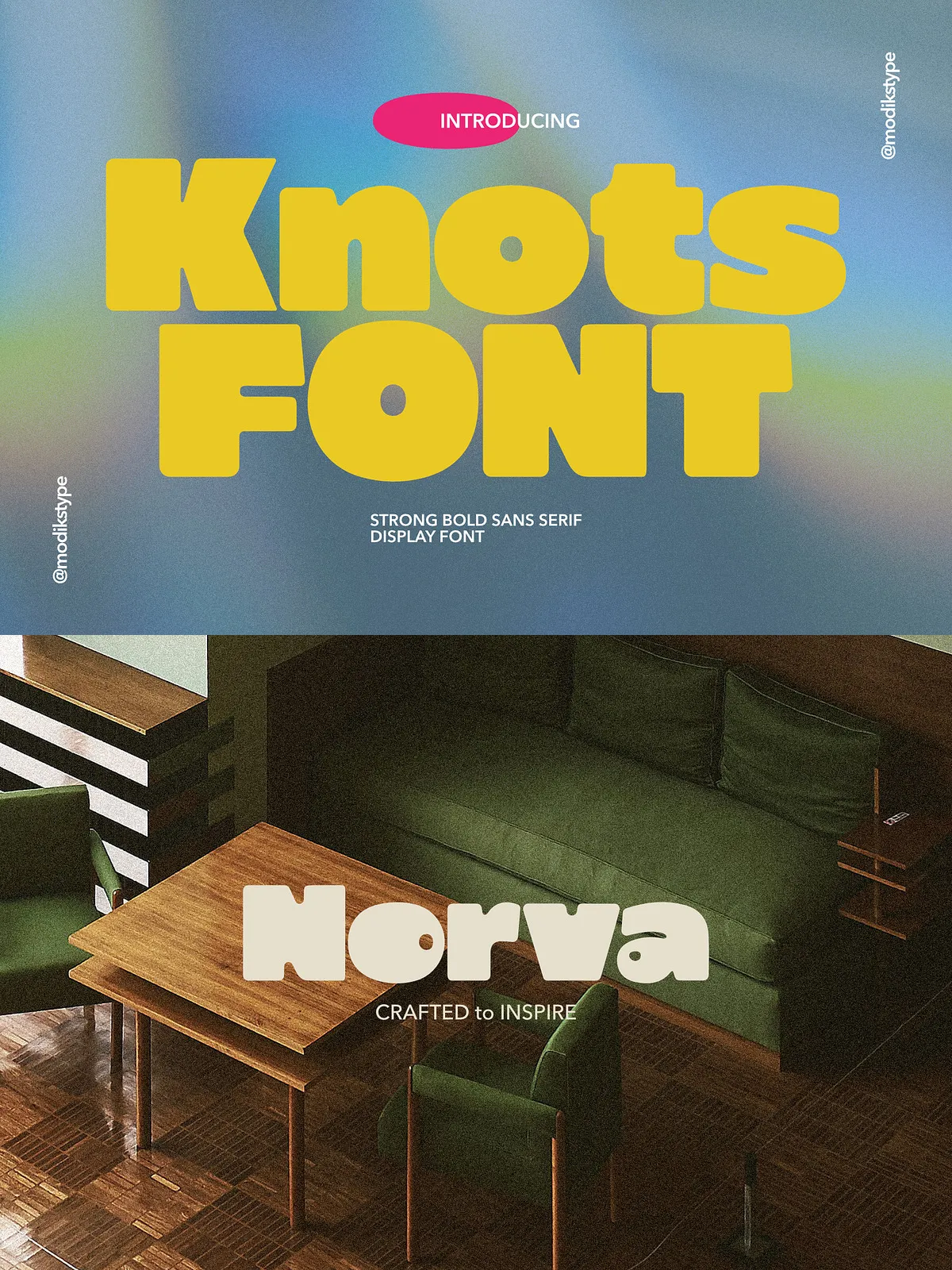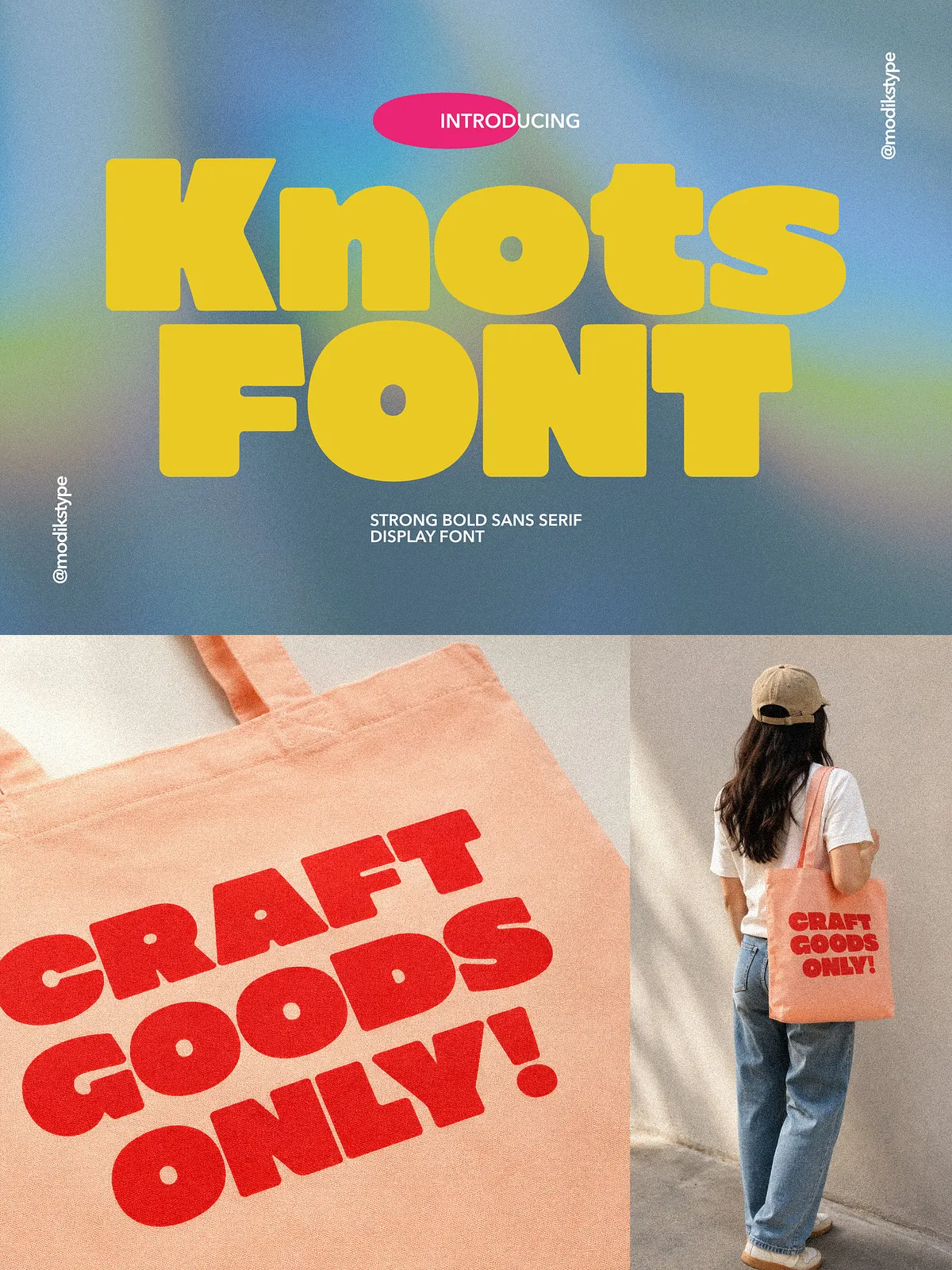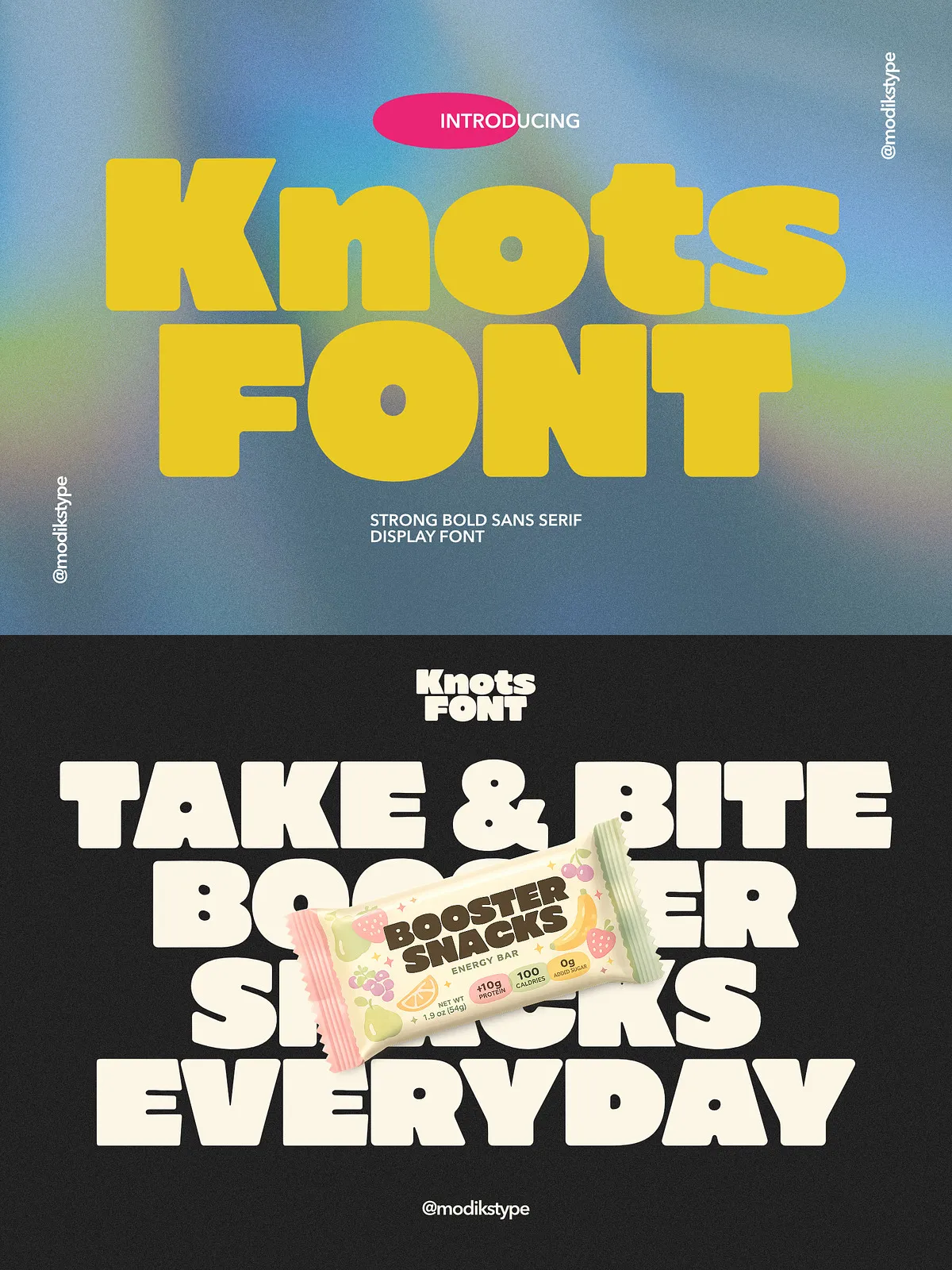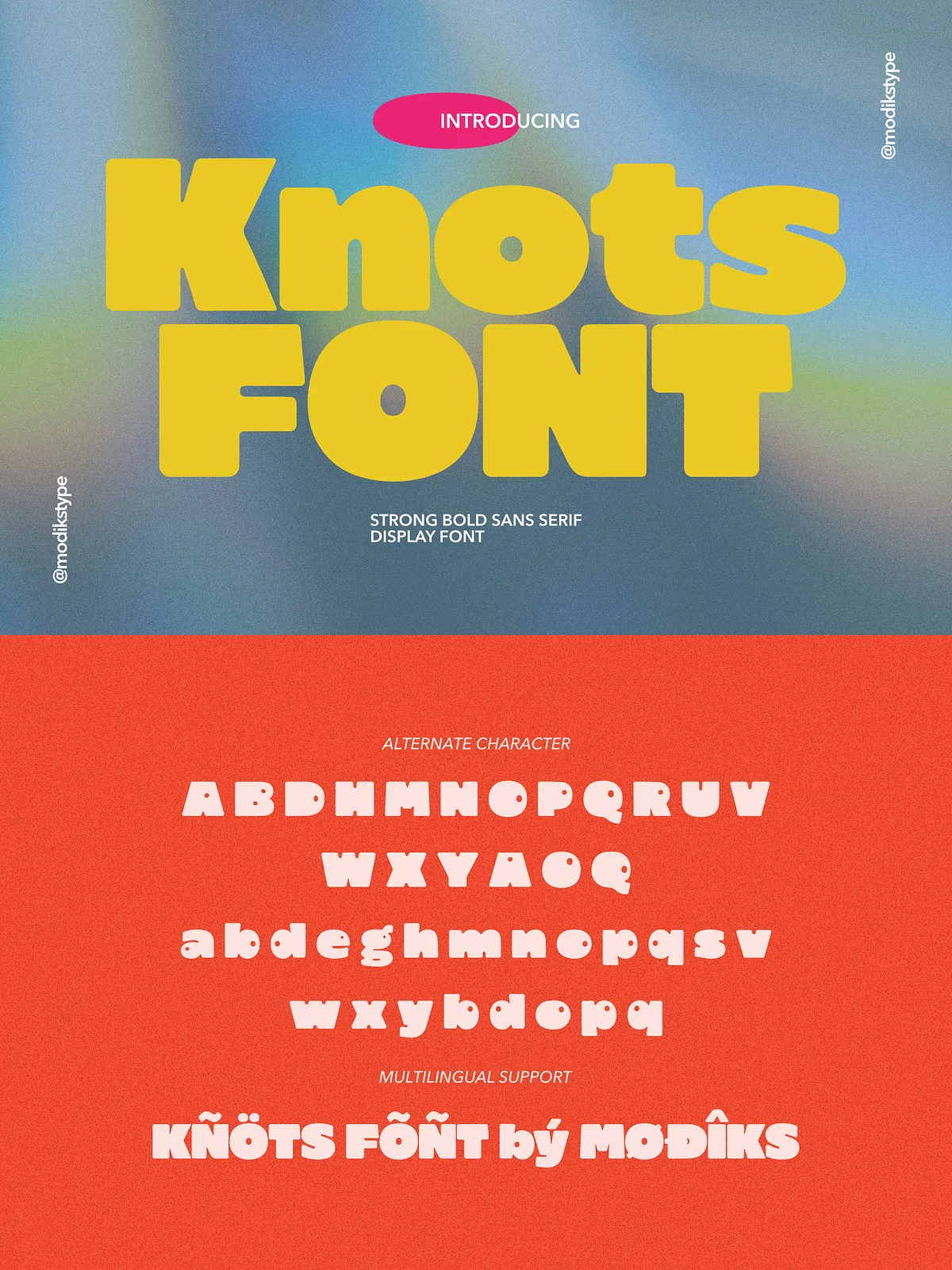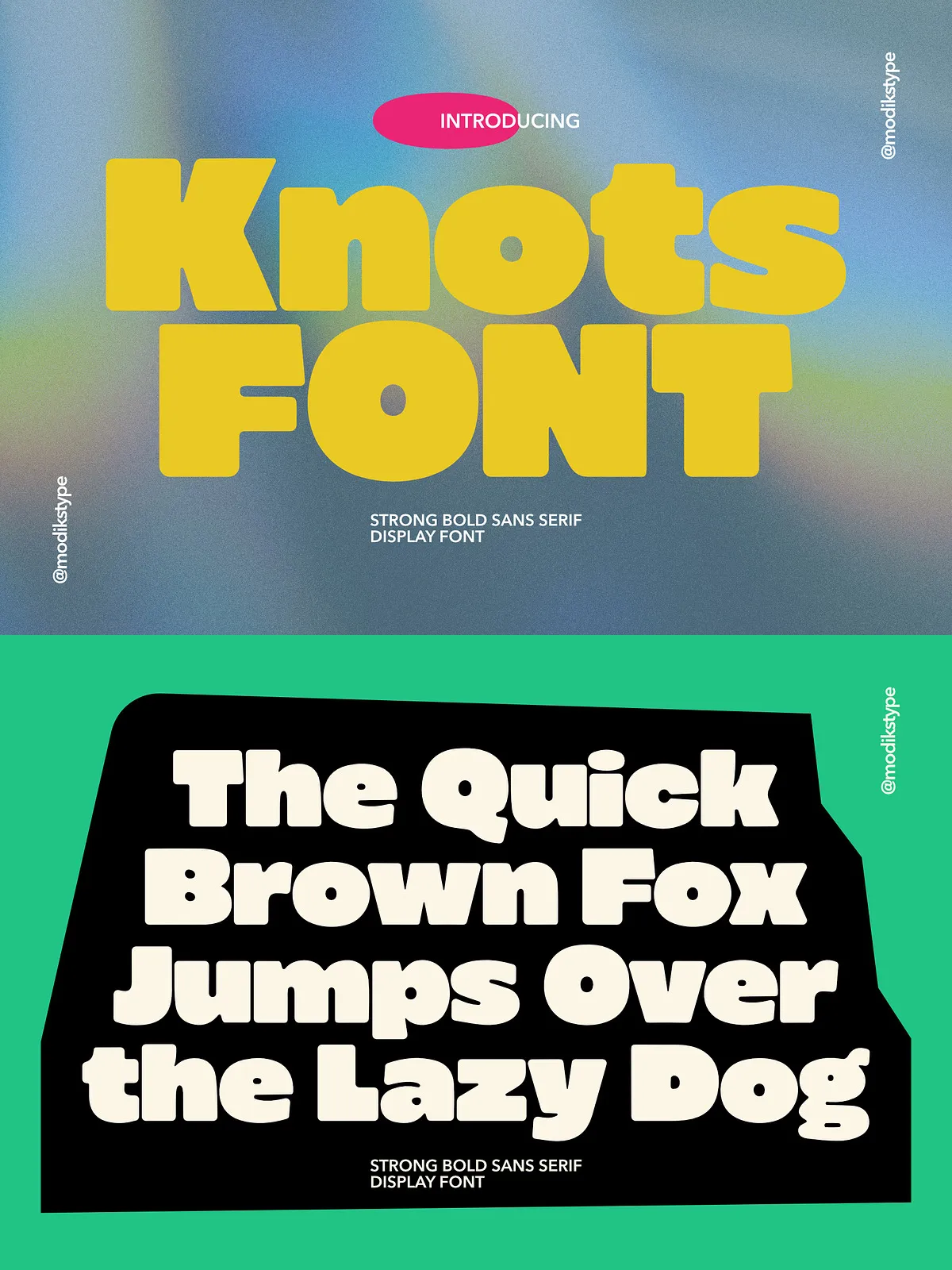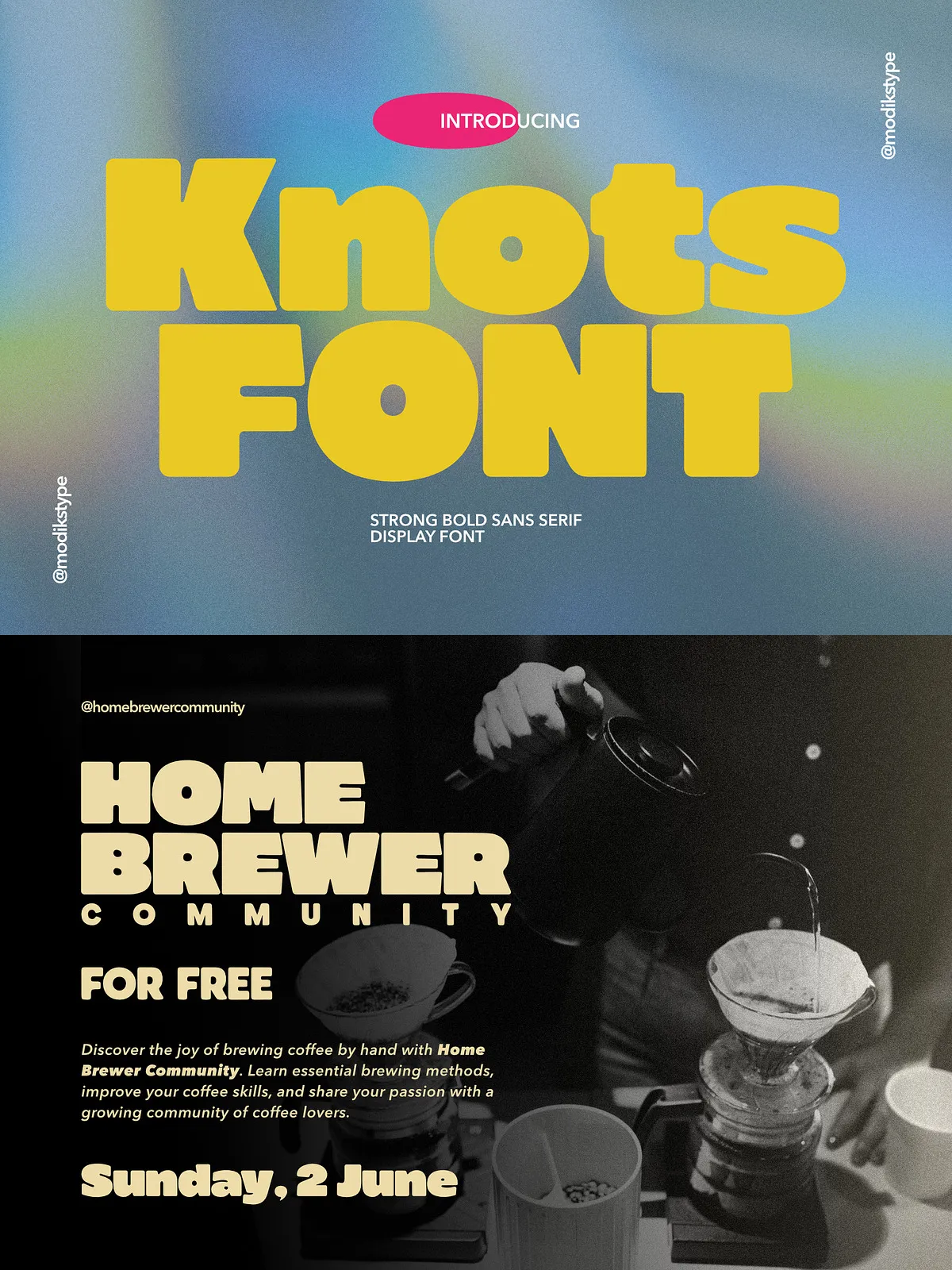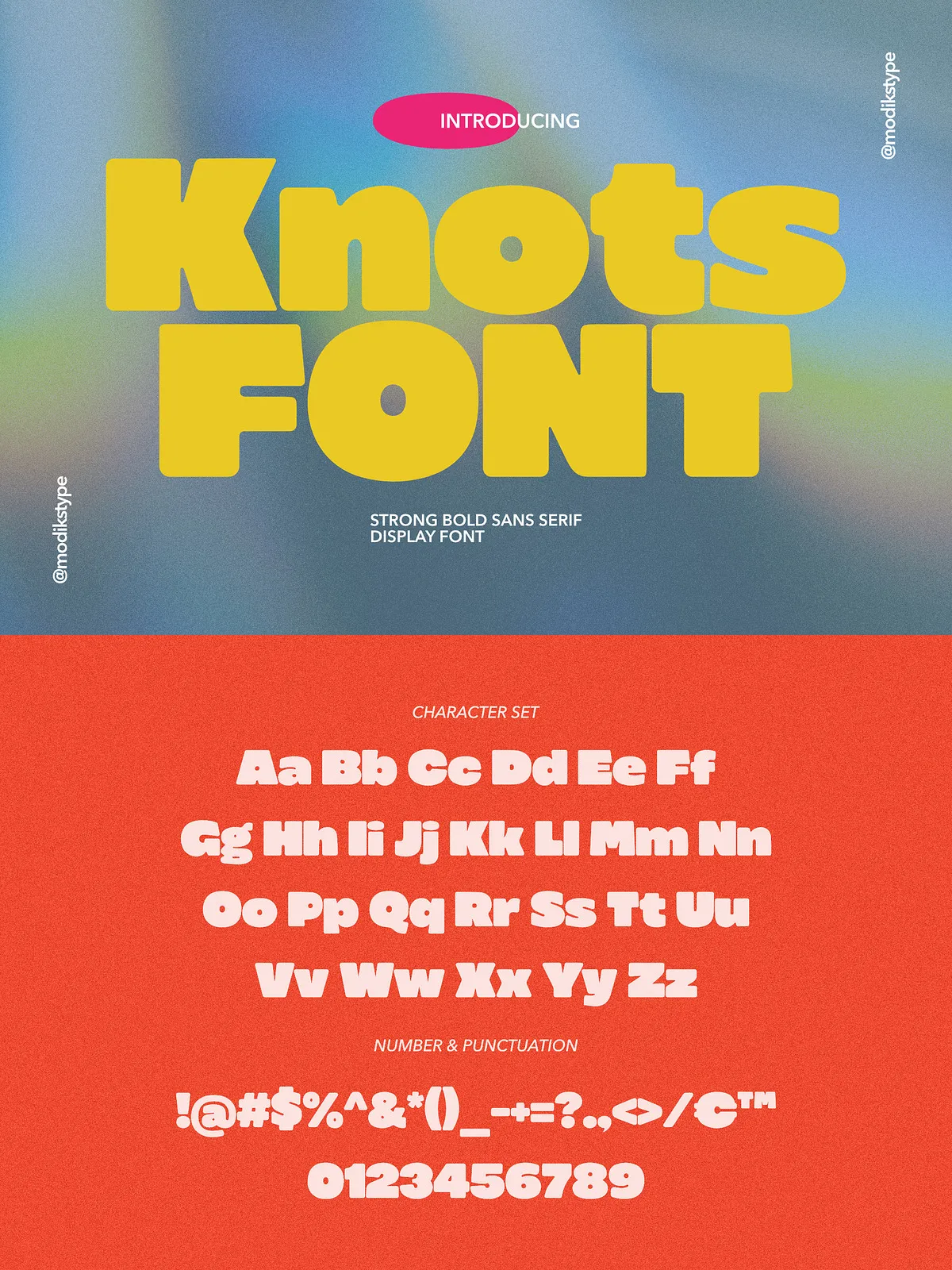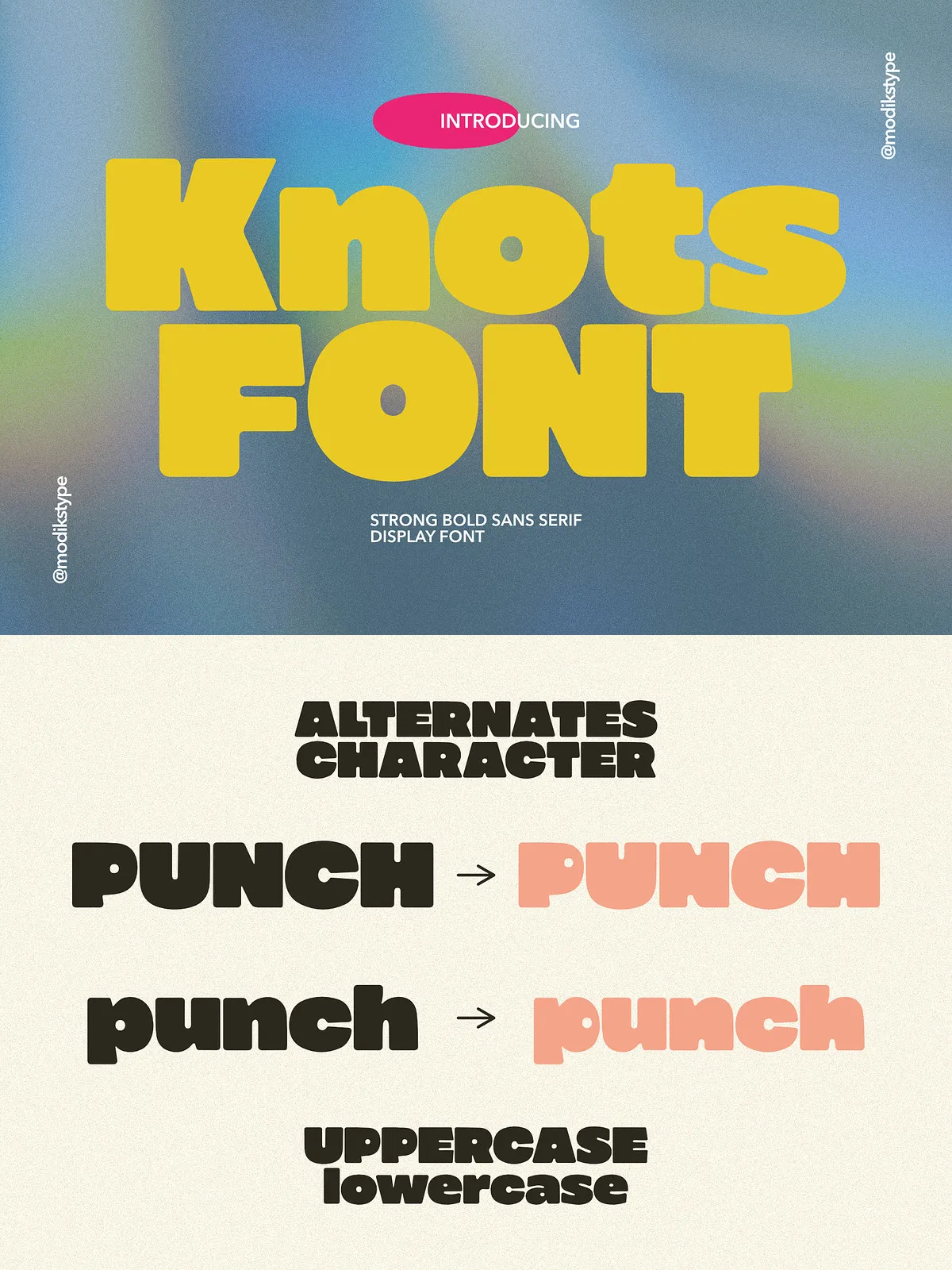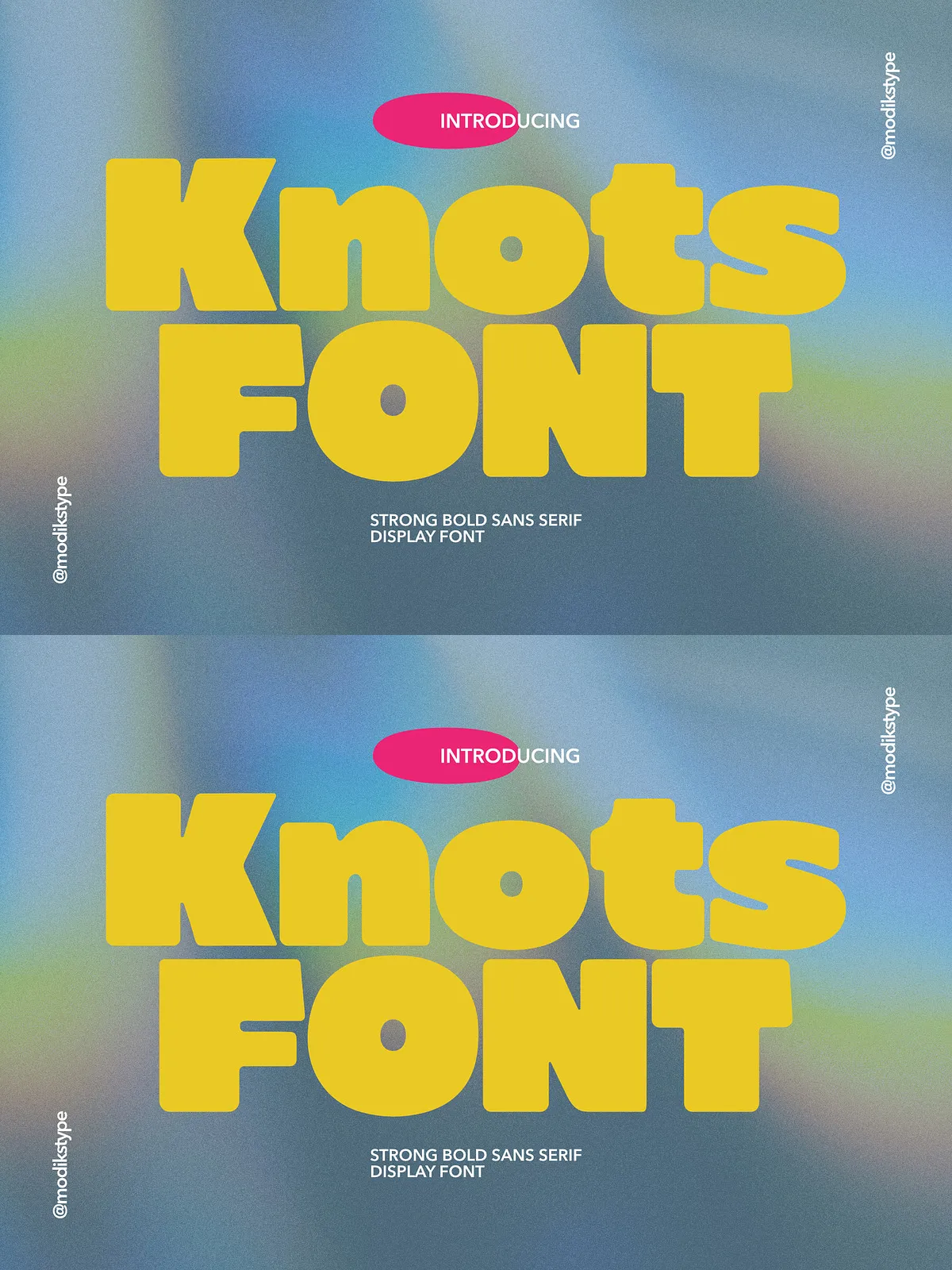
Knots is a strong, bold, and playful display font crafted to command attention. Its chunky letterforms and smooth, retro-inspired curves deliver an immediate visual presence that reads clearly at large sizes while retaining charm and personality. Knots performs equally well for nostalgic, retro aesthetics and modern, playful brands—providing designers with a versatile tool to create memorable logos, packaging, posters, and editorial headlines.
Key Characteristics
Chunky, Readable Letterforms
Knots features thick strokes and generous counters that maximize legibility even at display sizes. The letterforms balance weight and openness so that bold headlines remain readable across print and digital formats. This makes Knots ideal for signage, posters, and product packaging where immediate comprehension matters.
Retro-Inspired Personality
Knots channels classic, vintage influences through its rounded terminals and soft, playful curves. These retro cues give the font a familiar, approachable character that evokes nostalgia without feeling dated. Designers can rely on Knots to lend warmth and vintage charm to contemporary layouts.
Playful, Confident Tone
The font’s energetic shapes project confidence and friendliness. Knots works well where brands want to appear bold yet approachable—children’s products, food and beverage packaging, and lifestyle merchandise are natural fits. The typeface injects personality into creative marketing while maintaining a professional, finished look.
Recommended Uses & Applications
Branding & Logo Design
Use Knots to create memorable logos and brand marks that stand out at a glance. Its strong silhouette translates easily into wordmarks and iconography, and it pairs well with simpler body typefaces to maintain hierarchy and clarity across brand assets.
Packaging & Food Products
Knots excels on labels and packaging where shelf presence matters. The chunky strokes and optimistic tone attract attention on crowded shelves and convey a friendly, dependable brand personality—ideal for snack foods, beverages, artisanal products, and children’s items.
Posters, Flyers & Editorial Headlines
Apply Knots to headlines and poster copy to achieve instant impact. Its bold forms anchor layouts and draw the eye, making it excellent for event posters, promotional flyers, book covers, and magazine covers where visual urgency helps sell the message.
Merchandise & Apparel
Knots makes striking type for merchandise and apparel designs. The font prints cleanly at a variety of sizes and adapts to playful compositions—perfect for T-shirts, tote bags, stickers, and other promotional items that benefit from strong typography.
Pairing Suggestions
To balance Knots’ strong personality, pair it with neutral supporting typefaces. Clean sans-serifs and modern geometric serifs provide contrast and preserve readability for body copy. Use Knots for headlines and display elements while keeping supporting text understated to maintain visual hierarchy.